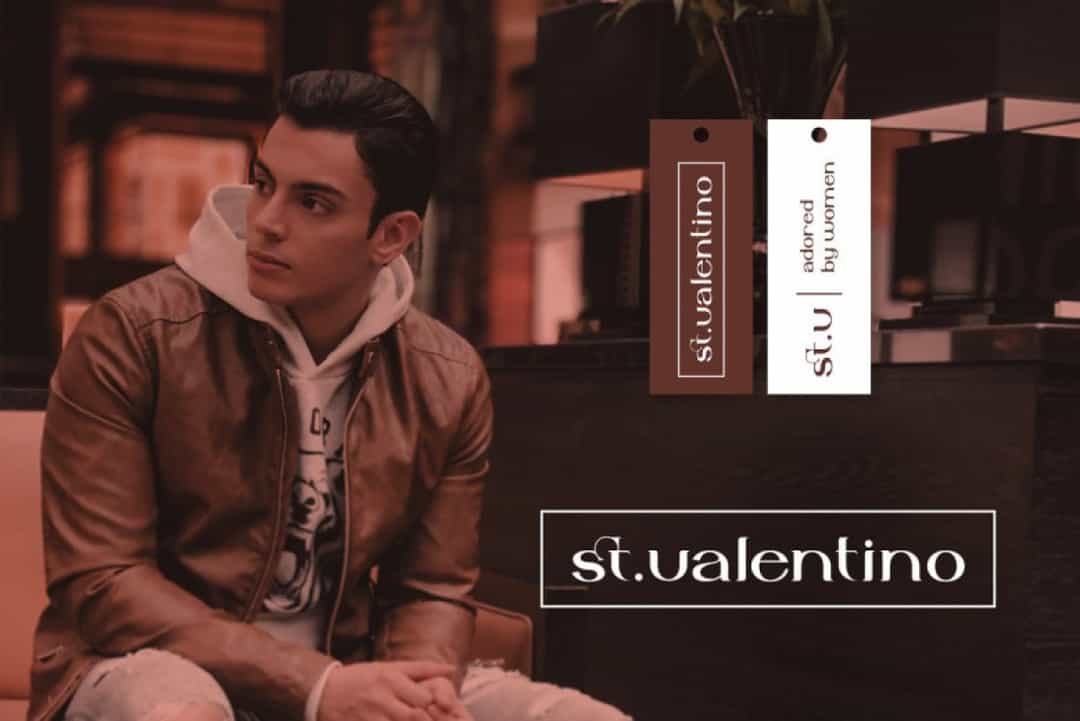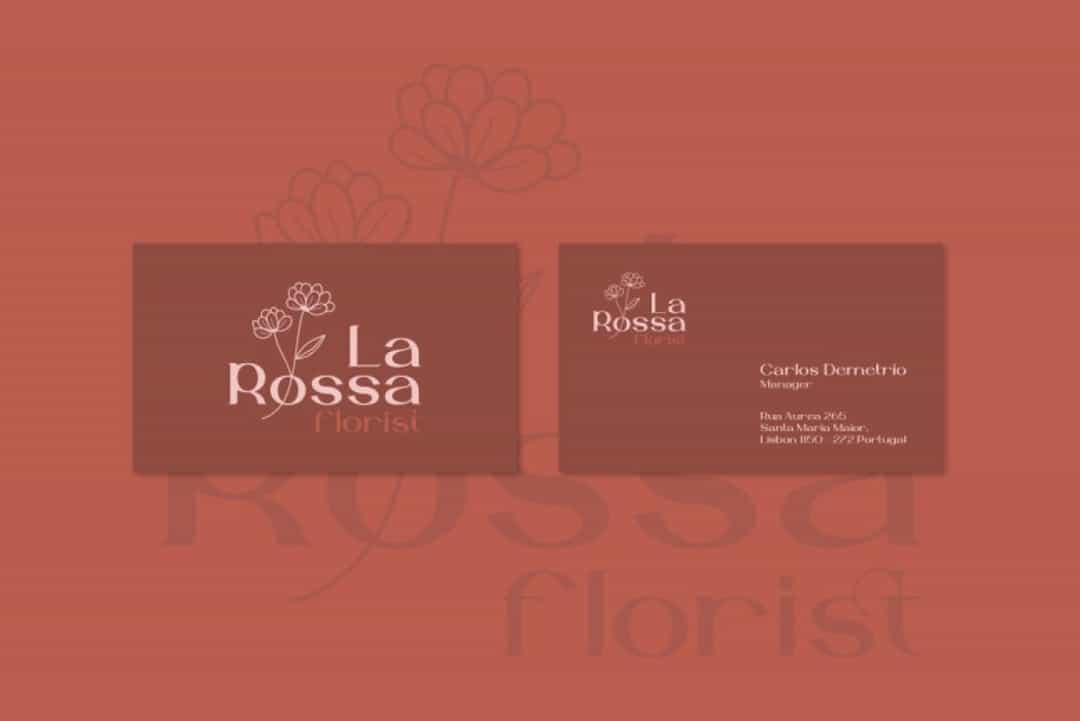
Monstellar is an elegant Minimalist Modern Elegant Serif font with eye-catching ligatures and multilingual support, making it suitable for small to large sizes alike. Monstellar is ideal for creating stylish branding, logo design, clothing branding packaging for products magazines or as trendy text overlay on every background picture.